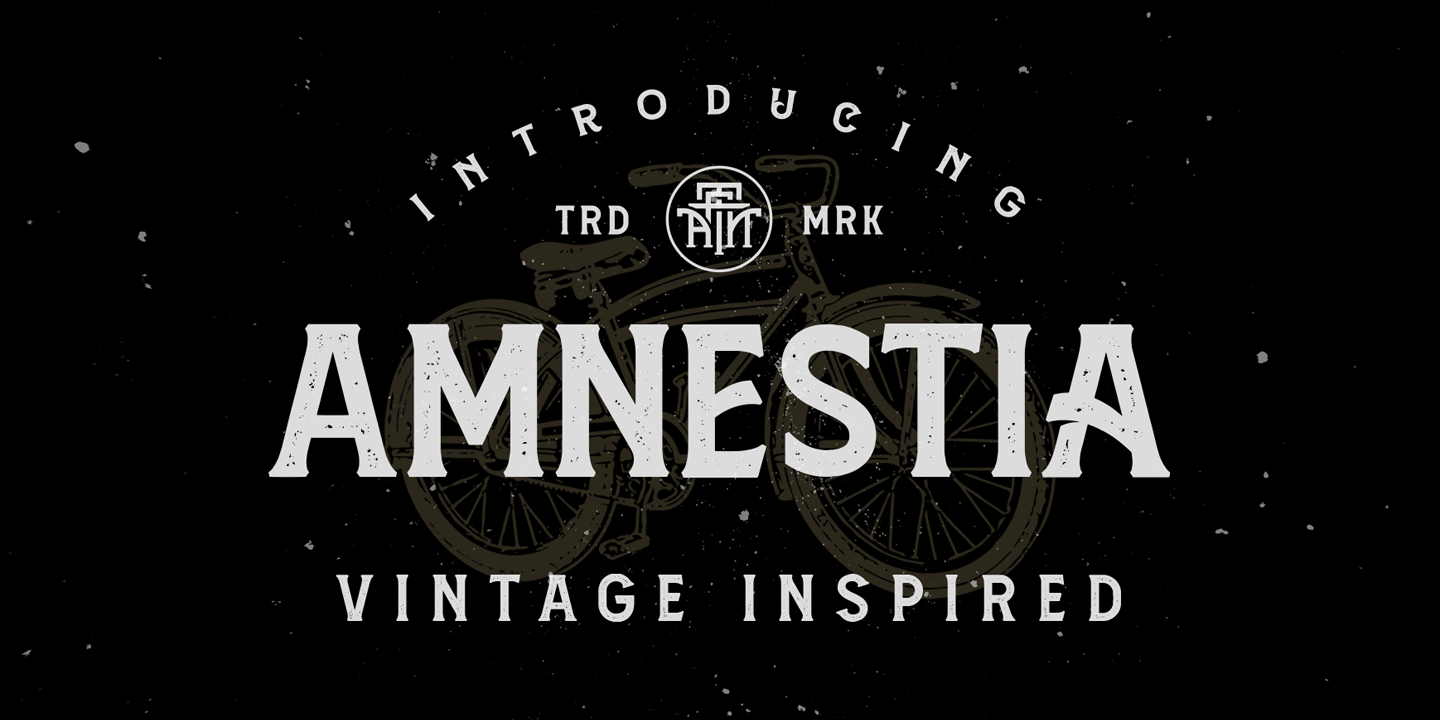
This vintage serif typeface is perfect for logos, insignia, apparel, labels, packaging, and posters.
The Amnestia Font is exciting because its modern-classic design with over 100 alternates and swashes creates a versatile, nostalgic aesthetic that elevates any project.
Its font family includes Amnestia Normal and Amnestia Distressed, offering two distinct styles for creative flexibility.
Searching for a font that blends vintage charm with modern versatility? Amnestia Font Free Download is an excellent choice for designers seeking a serif typeface with a timeless appeal. Designed by Ahmad Ramzi Fahruddin and published by Arterfak Project in 2019, this all-caps font is inspired by vintage signage and minimalist serif styles. With a medium height ideal for display or sub-text, the Amnestia Font is perfect for both digital and print projects, making it a favorite for graphic designers, marketers, and content creators.
The Amnestia Font excels in applications requiring a retro, sophisticated look. It’s a top choice for logos and insignia, where its stylistic alternates and swashes add unique flair for brands in automotive, coffee, or barbershop industries. Designers use it for labels and packaging, enhancing products like artisanal goods or apparel with a classic vibe. Posters for events or promotions benefit from its bold, readable design. Social media creators leverage it for eye-catching Instagram posts, TikTok overlays, or YouTube thumbnails, ensuring high engagement with its vintage aesthetic.
What makes the Amnestia Font Free Download so captivating is its modern-classic feel, enhanced by over 100 alternates, including stylistic sets 01–10 with swashes and tails. Available in OpenType and TrueType formats, it supports 12 languages and offers creative flexibility in tools like Adobe Illustrator or InDesign. Its distressed and normal variants allow designers to choose between a rugged, retro look or a clean, polished style, making it ideal for diverse typographic needs. The font also supports @font-face for web embedding, ensuring seamless integration into websites.
The Amnestia Font family includes Amnestia Normal for a clean, minimalist serif look and Amnestia Distressed for a gritty, vintage effect. These styles cater to varied design preferences, from sleek branding to textured, retro visuals. For commercial use, a license is required, available at https://arterfakproject.com/product/amnestia/ or https://www.myfonts.com. Free downloads are for personal use only, so avoid unverified sites to ensure safety and compliance.